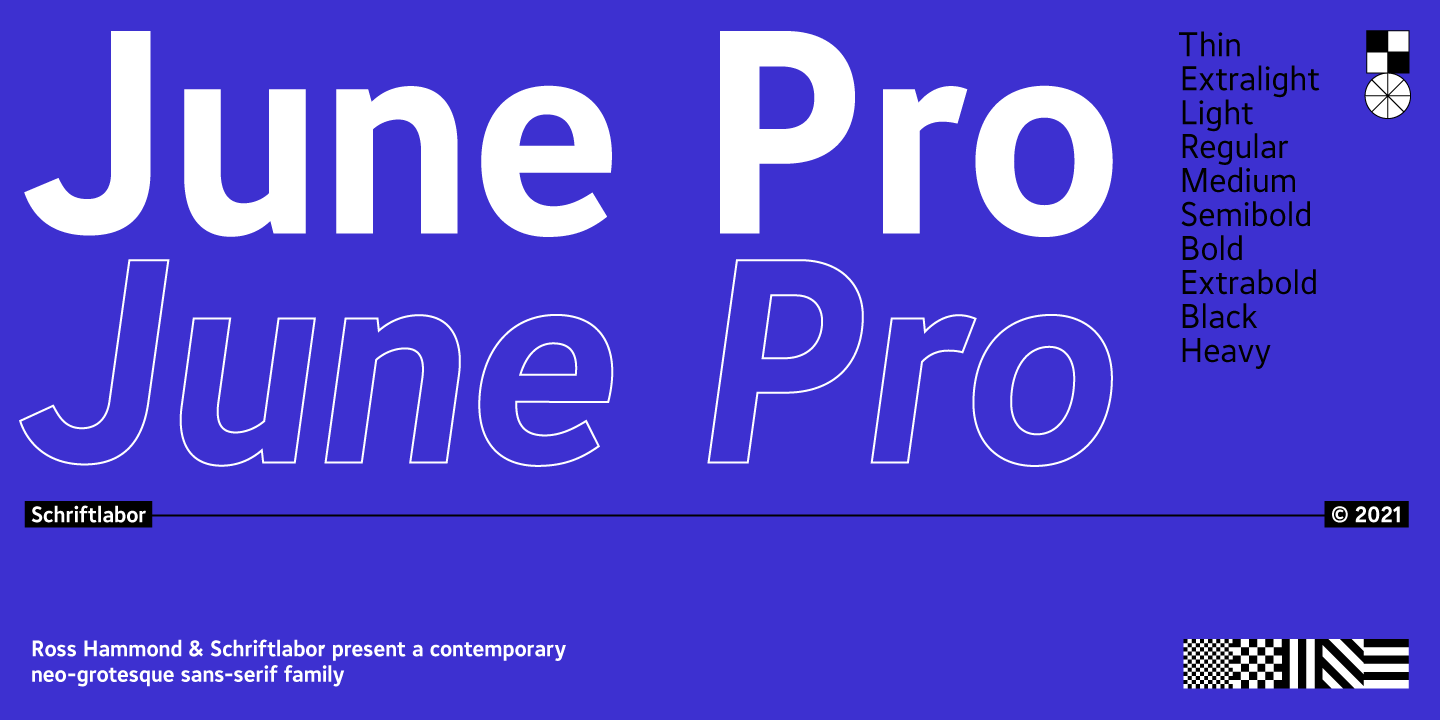
June Pro Font is perfect for corporate branding projects, professional presentations, business card designs, annual report layouts, website headers, marketing brochures, legal documents, financial statements, consulting firm materials, and executive communication templates.
What makes June Pro Font so exciting is its exceptional combination of professional elegance and modern functionality. This typeface features refined letterforms with precise geometric construction that communicates reliability and sophistication. The font's clean, authoritative appearance builds trust and credibility while maintaining excellent readability across all business applications, making it the ideal choice for organizations seeking to establish a polished and trustworthy brand presence.
June Pro Font family includes Thin, Light, Regular, Medium, Bold, and Black weights, along with corresponding italic styles. The comprehensive family also features condensed variants, extended character sets supporting multiple languages, and professional OpenType features including small caps, oldstyle figures, and extensive punctuation marks.
The June Pro Font Free Download package provides businesses with access to premium professional typography. This versatile typeface combines traditional corporate design principles with contemporary aesthetic sensibilities, creating a powerful visual tool for organizations across all industries. Whether you're developing corporate identity systems, designing professional publications, or creating business communications, this font delivers the authoritative presence needed for successful business applications.
June Pro Font supports comprehensive international character sets including Latin, Cyrillic, and Greek alphabets, making it perfect for global business communications. The font's carefully optimized spacing and kerning ensure superior legibility in both print and digital environments. Its advanced OpenType features include contextual alternates, stylistic sets, and professional typography options that enhance document quality and brand consistency.
Professional designers and corporate communications teams choose June Pro Font for its reliability and sophisticated appearance. The font performs exceptionally well across all media formats, from business cards to large-scale signage, maintaining its professional character and excellent readability. Its authoritative presence makes it ideal for financial institutions, law firms, consulting companies, and any organization requiring trustworthy visual communication.